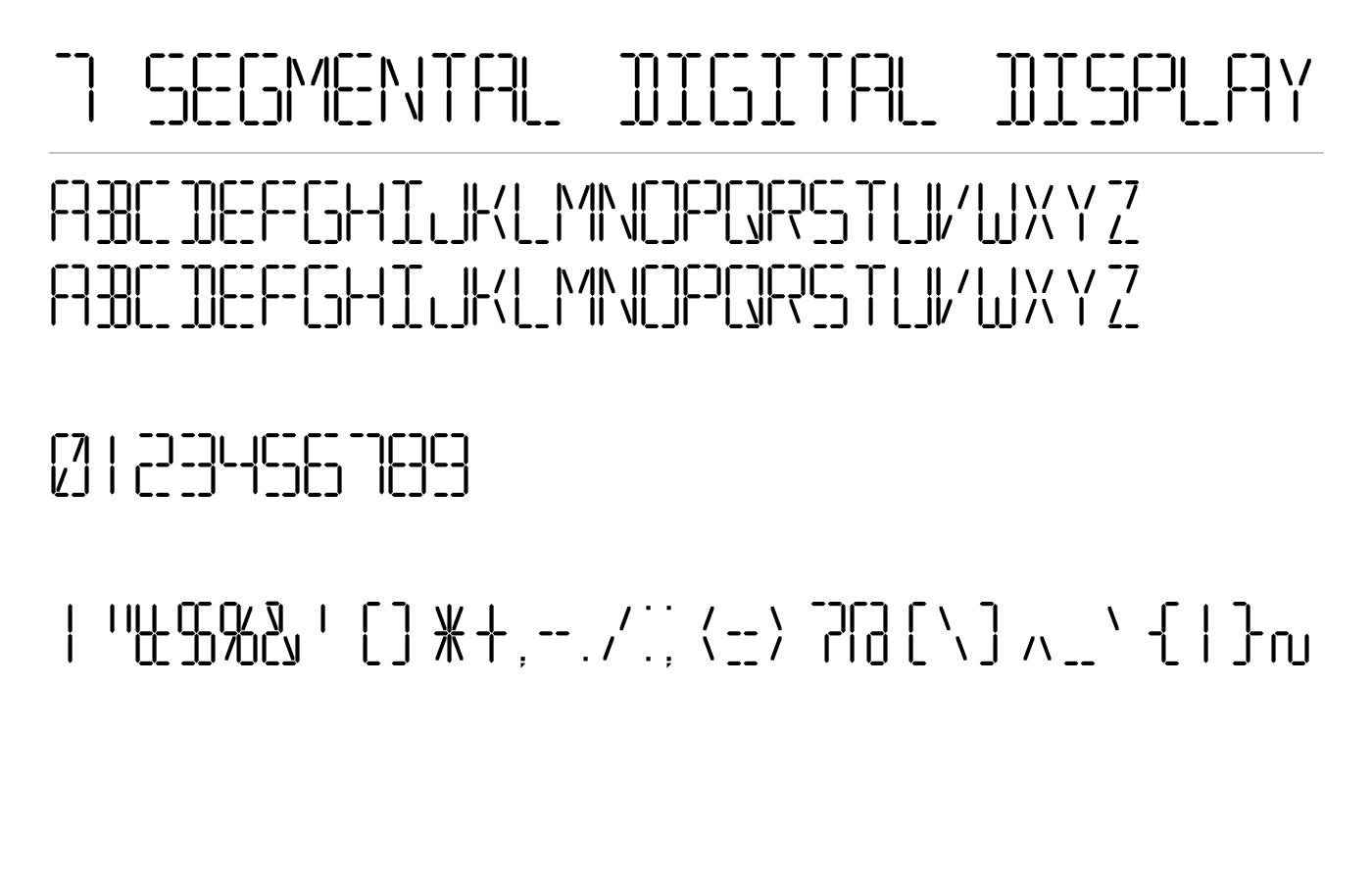
7 Segmental Digital Display is a thin, monospaced sans serif font that mimics the look of classic seven-segment electronic displays. Its geometric, segmented strokes create a technical and retro-futuristic feel, making it ideal for digital clock interfaces, tech-themed designs, and sci-fi projects. This font works best in headlines and display uses where a clear, digitized aesthetic is desired.
7 SEGMENTAL DIGITAL DISPLAY Font